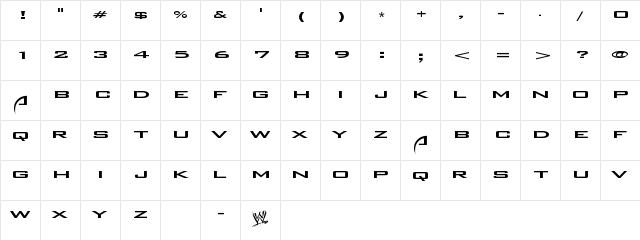
Backslash Regular
Design Context for Backslash Typeface
Backslash offers clean, dependable letterforms without strong stylistic allegiance, making it a practical choice for designers who need flexibility.